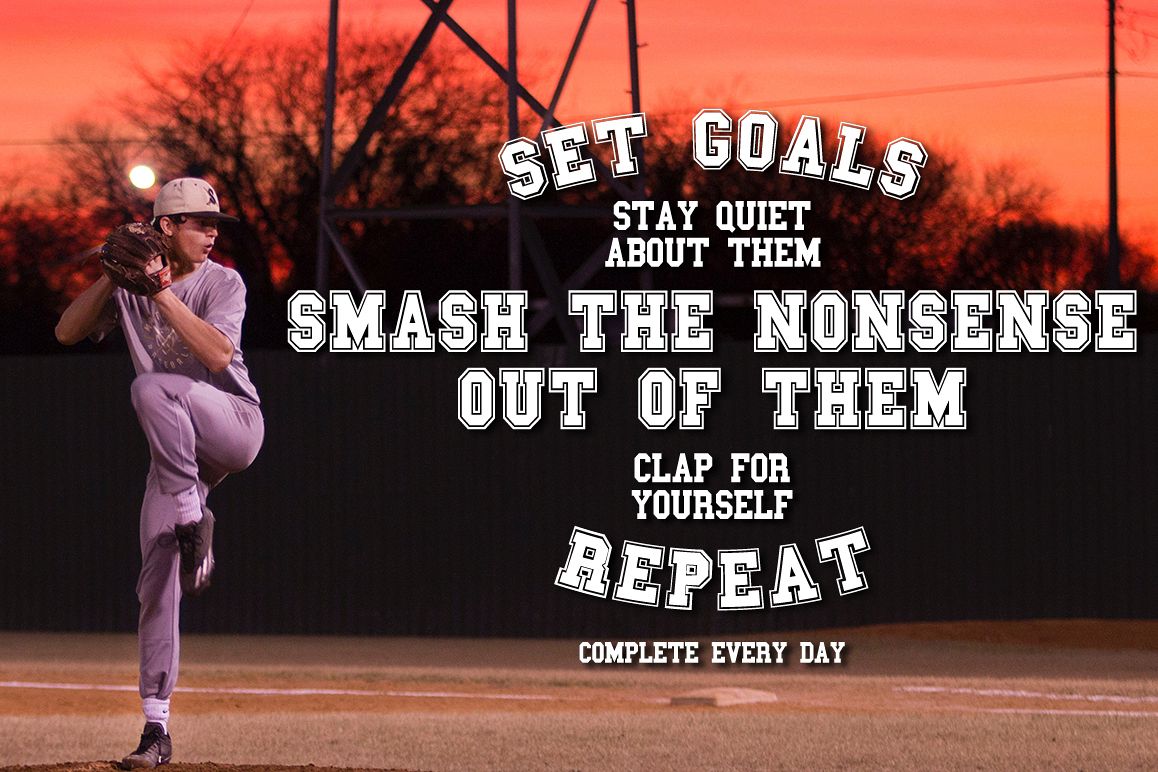
Varsity Font | College Font
Sport Champs Simple
Sport Champs Regular
If you had seen my fonts before, you know that I like creating playful fonts. This font is no different.
- Sport Champs Regular. Includes uppercase A-Z letters, numbers and punctuation.
- Sport Champs Simple. Includes uppercase A-Z letters, numbers and punctuation.
If you ever do anything sports related - you need this font!